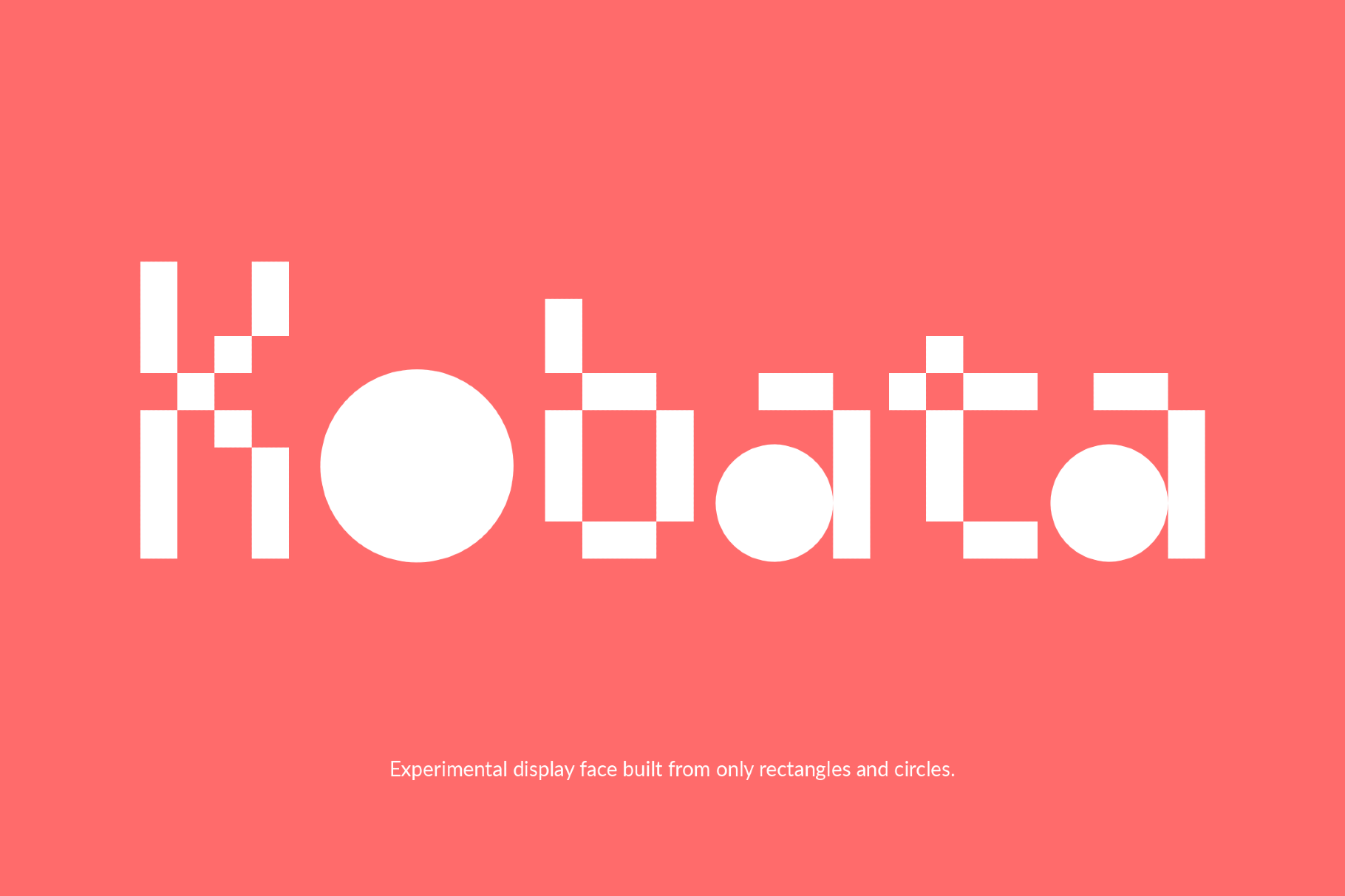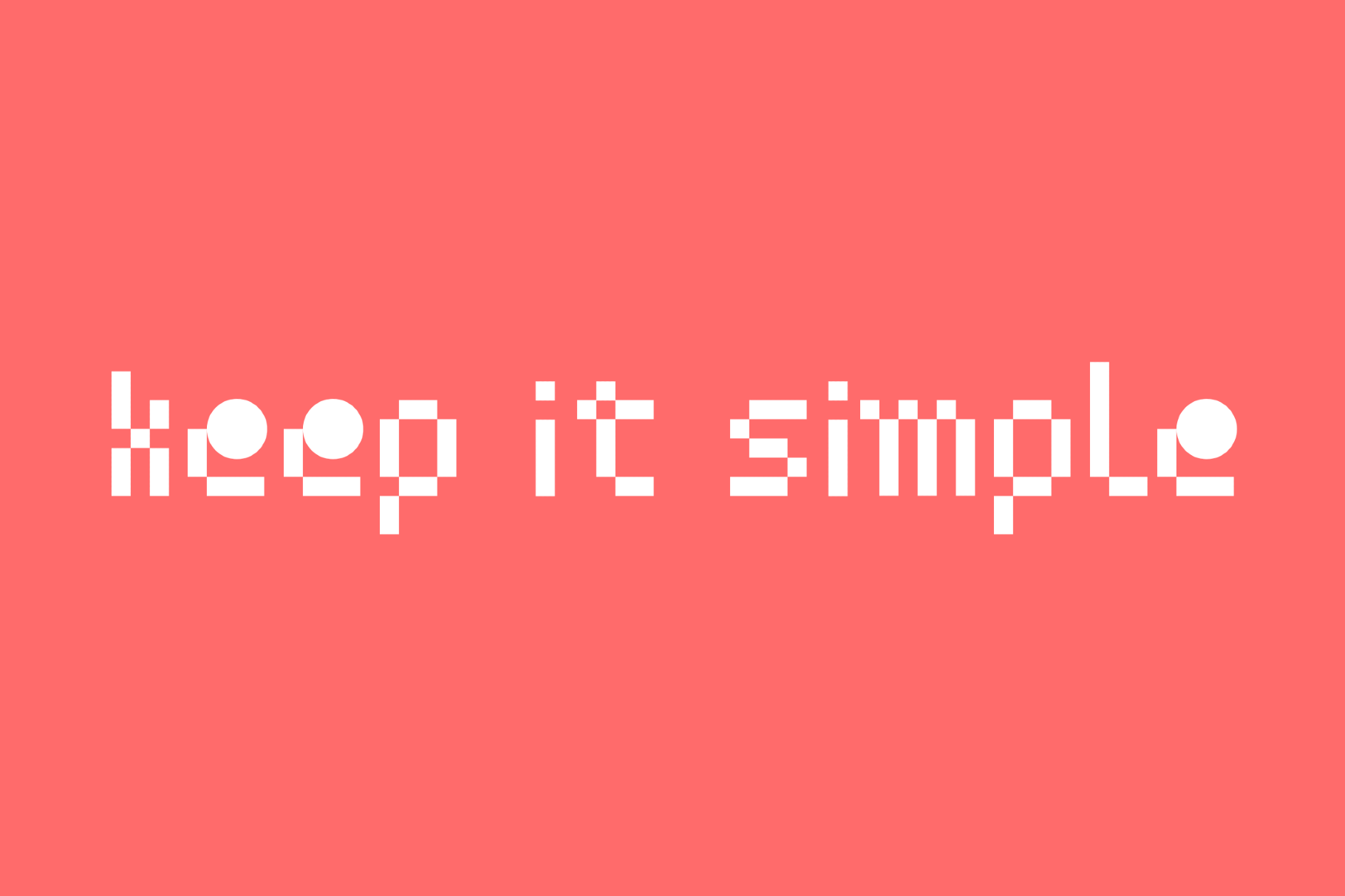
Kobata - Pixel Bauhaus Font
Kobata is a modular font assembled from circles, bars, and pixel-like blocks, with a stripped-down graphic logic. It feels close to Bauhaus experiments, early computer iconography, and stencil systems reduced to their barest parts. It is well placed in poster titling, tech identities, album sleeves, interface concepts, packaging, motion graphics and editorial layouts.